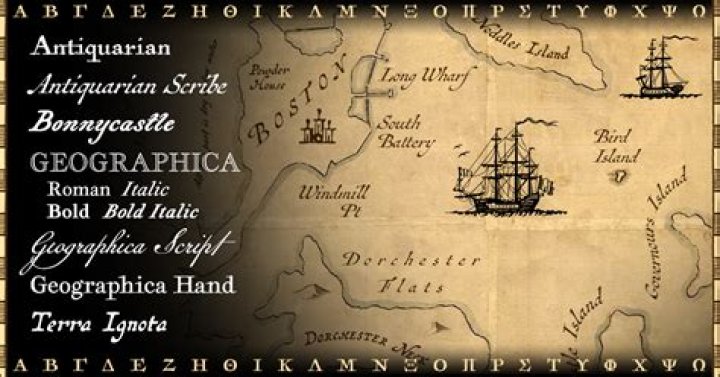
There's at least one font designed for maps. Back in 2005 I told you about Cisalpin, a humanist lineal font designed by Felix Arnold for use in cartography. It's available for licensing on Linotype.Dec 27, 2017 Also asked, what font was used in the 19th century?
One of the most popular and commercially successful fonts to come out of the 19th-Century was the Fat Face font. This typeface family was developed by merging two traditional fonts, Dido and Bodoni.
One may also ask, what is the National Geographic font? Back Story: Geograph is the official brand typeface of National Geographic, the cross-platform media company best known for its yellow-framed magazine.Jun 5, 2018
Also know, what fonts were used in the 1600s?
16th century France
- De Colines, Estienne, and Augereau.
- Garamond.
- Robert Granjon.
- Fell types.
- Caslon.
- Fleischmann.
- Baskerville.
- Modern romans.
What font does Apple Maps use?
San Francisco (SF) is the system font on all Apple platforms; the SF Pro variant is the system font in macOS. Using the system font gives your text legibility, clarity, and consistency with apps across Apple platforms. Download the San Francisco family of fonts here.
What font was used in 1880?
The most popular font released in 1880 was Eastlake, designed by William W. Jackson. What fonts were used in the 1700s?
Practically all American and English printing from 1735 to 1800 was done using the Caslon font. This font was created by William Caslon (1692-1766), sometime around 1722 [2]. Around 1754, the Baskerville font was introduced by John Baskerville [3] (1706-1775). What font was used in the industrial revolution?
The typeface is a geometric or “neo-grotesque†slab serif, with a geometric design similar to most modern sans-serif fonts.Dec 13, 2016 What does serif mean?
In typography, a serif (/ˈsɛrɪf/) is a small line or stroke regularly attached to the end of a larger stroke in a letter or symbol within a particular font or family of fonts. Some typography sources refer to sans-serif typefaces as "grotesque" (in German, grotesk) or "Gothic", and serif typefaces as "roman". What font on Word looks like newspaper?
Times New Roman is the most common 'newspaper' font. This will give it the authentic look.Nov 5, 2020 What is a slab serif font?
In typography, a slab serif (also called mechanistic, square serif, antique or Egyptian) typeface is a type of serif typeface characterized by thick, block-like serifs. Serif terminals may be either blunt and angular (Rockwell), or rounded (Courier). What is a Didone font?
Didone (/diˈdoʊni/) is a genre of serif typeface that emerged in the late 18th century and was the standard style of general-purpose printing during the nineteenth. It is characterized by: Narrow and unbracketed (hairline) serifs. (The serifs have a nearly constant width along their length.) What font was used in the 1890s?
The most popular font released in 1890 was De Vinne, designed by Gustav F. Schroeder. When was Old English font used?
Despite the name, there's nothing specifically English about Old English fonts. In fact, what is for various complicated reasons known 'Old English' script was used not just in England but also in France, Germany, Italy and the Netherlands between the 12th and 17th centuries.Mar 16, 2020 What is a humanist font?
What Is a Humanist Typeface? Humanist typefaces, sometimes known as old-style or Venetian, are inspired by traditional Latin letterforms. Fonts in the humanist family are characterized by low contrast between thin and thick strokes, loose letter spacing, and wide counters, making them more legible for small-sized text.Jun 2, 2021 When did typography begin?
Typography with movable type was invented during the eleventh-century Song dynasty in China by Bi Sheng (990–1051). His movable type system was manufactured from ceramic materials, and clay type printing continued to be practiced in China until the Qing Dynasty. What is Caslon font?
Caslon is the name given to serif typefaces designed by William Caslon I (c. 1692–1766) in London, or inspired by his work. He worked in the tradition of what is now called old-style serif letter design, that produced letters with a relatively organic structure resembling handwriting with a pen. What is Garamond font used for?
Garamond is a group of many serif typefaces, named for sixteenth-century Parisian engraver Claude Garamond, generally spelled as Garamont in his lifetime. Garamond-style typefaces are popular and particularly often used for book printing and body text. What is Afont?
A font is a graphical representation of text that may include a different typeface, point size, weight, color, or design. Software programs like Microsoft Word, Microsoft Excel, and WordPad allow users to change the font used when typing text in the document or spreadsheet, as do web designers.Jun 3, 2020 What font is similar to National Geographic?
Geograph is a contemporary, geometric sans serif originally designed for National Geographic.Apr 17, 2018